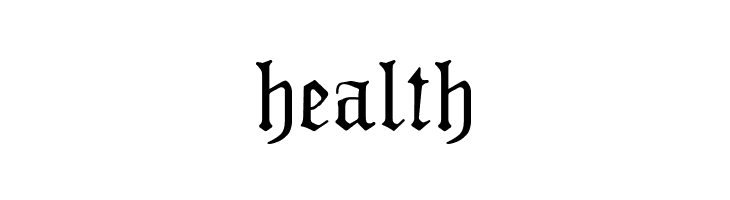
An ornate, decorative font with intricate patterns reminiscent of medieval manuscripts.
Intricate and decorative ornaments with a vintage and classic style.
A decorative Old English style font with intricate and ornate letterforms.
A bold, ornate Blackletter font with a gothic, medieval style.
An intricate blackletter font with a medieval, gothic style.
A traditional blackletter font with ornate, angular letterforms and high contrast.
A traditional Blackletter font with ornate, angular designs and historical elegance.